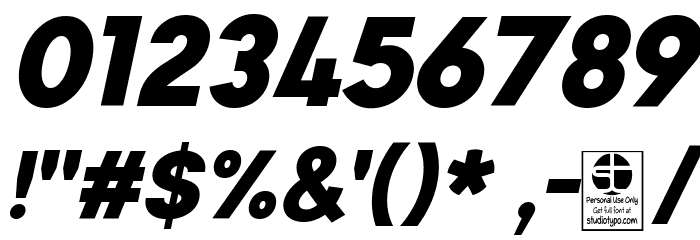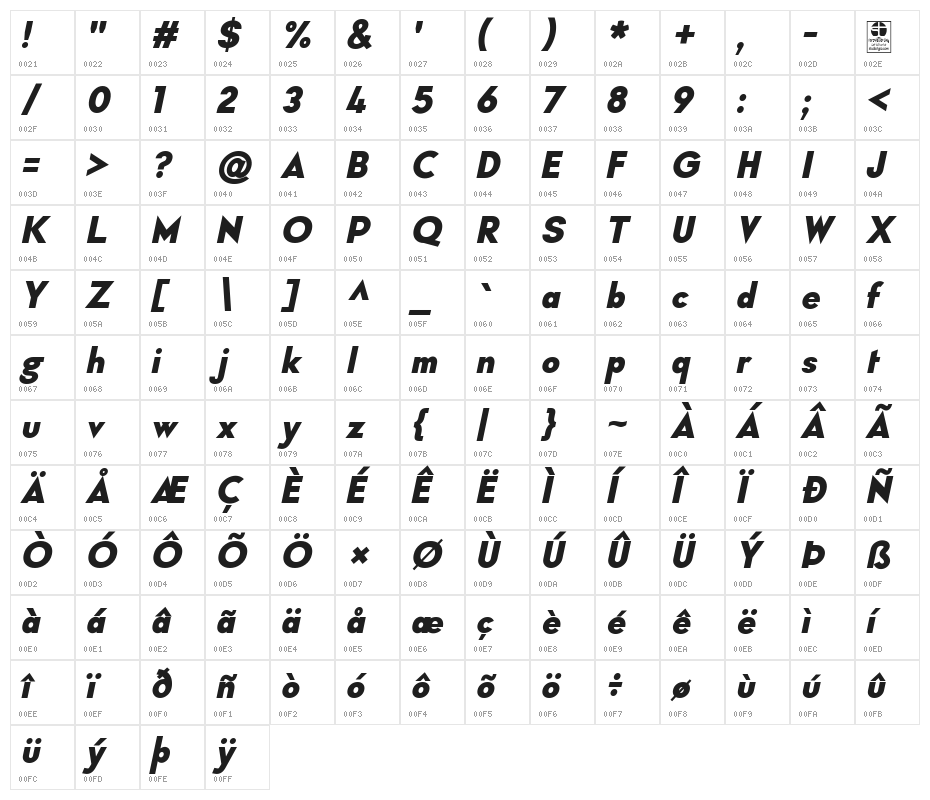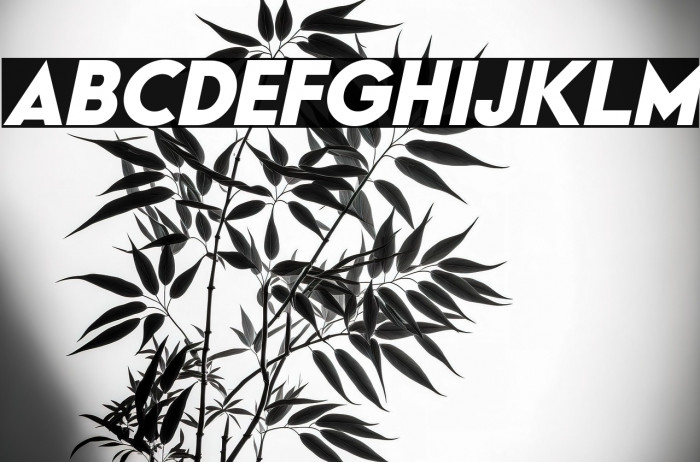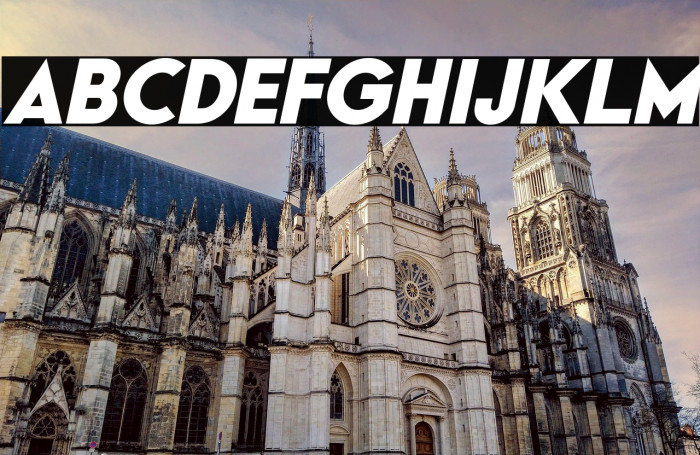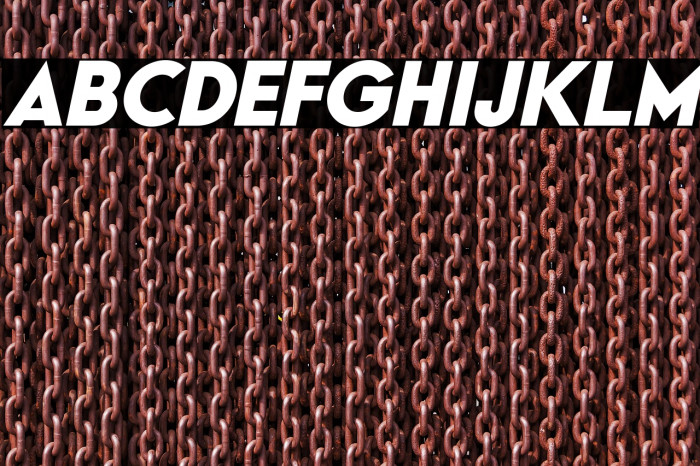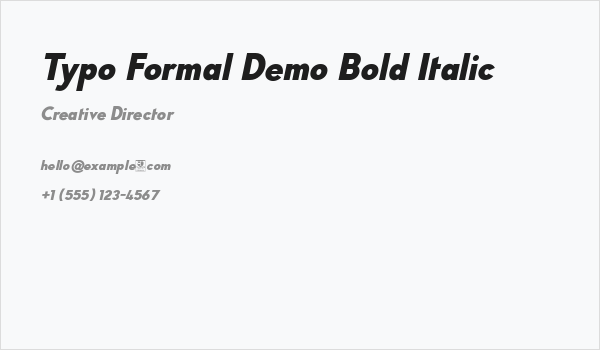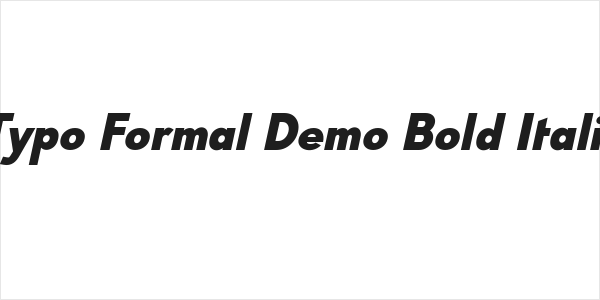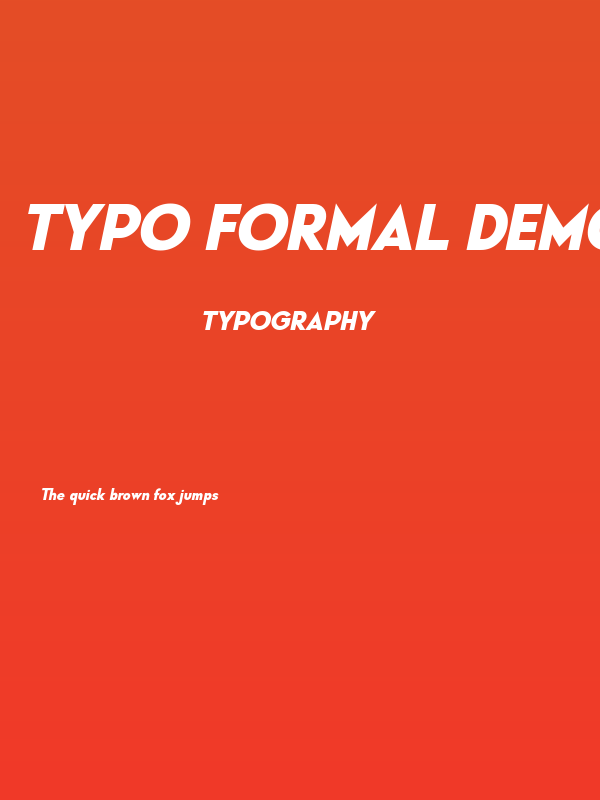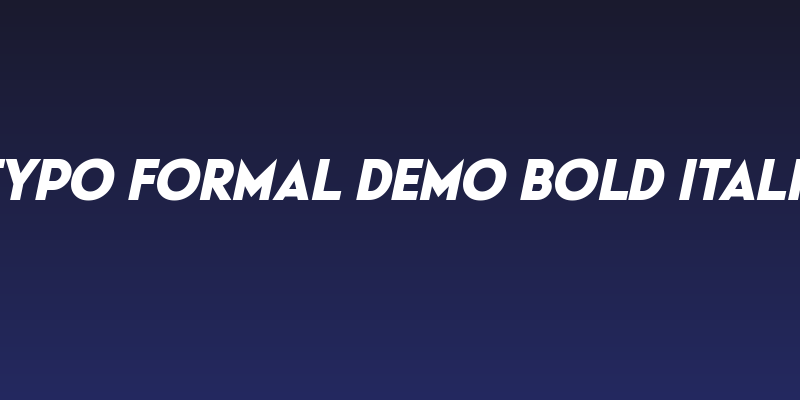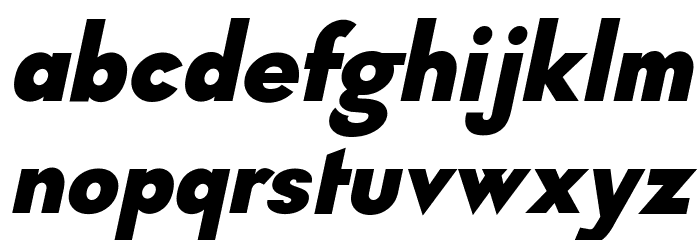
Typo Formal Demo Bold Italic Font
Typo Formal Demo Bold Italic Description
This font exhibits a bold and italic style, characterized by its strong and dynamic presence. The uppercase letters are robust and slightly slanted, giving a sense of movement and energy. The lowercase letters maintain a consistent boldness, with smooth curves and a modern touch. The numerals are equally bold, ensuring visibility and impact. Special characters are well-integrated, maintaining the overall aesthetic. The font's design is clean and versatile, suitable for various applications that require a bold statement.
| Use Case | Headlines, Logos, Branding |
| Proposed Projects | Ideal for branding, advertising, headlines, and any project that requires a strong visual impact. |